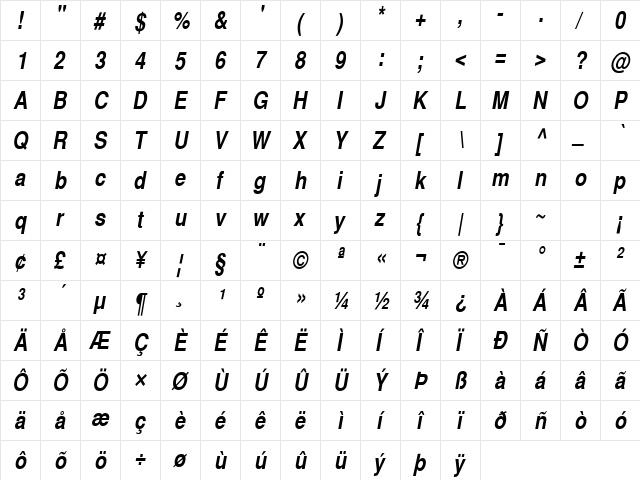
HeaveneticaNarrowSH Bold Oblique Font Preview
Design Context for HeaveneticaNarrowSH Typeface
HeaveneticaNarrowSH is a composed and adaptable typeface that performs quietly and consistently across a wide range of design contexts. The slanted form adds forward momentum and visual energy. The heavy weight commands attention and anchors typographic hierarchies. Its narrow stance lets it pack a punch even in space-constrained designs.
Pro Tip: Try HeaveneticaNarrowSH for annotation and caption copy alongside an upright companion — the contrast in angle creates a dynamic but ordered typographic system.